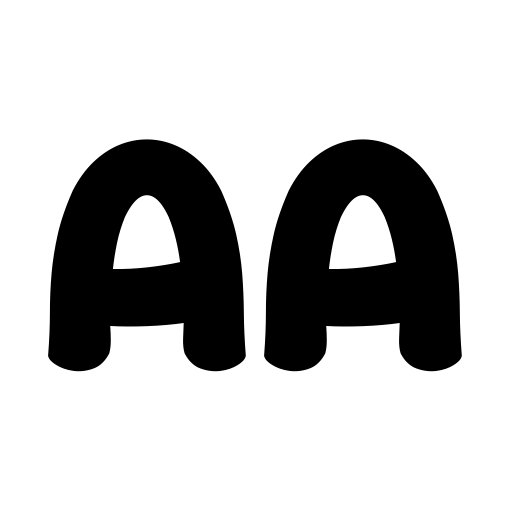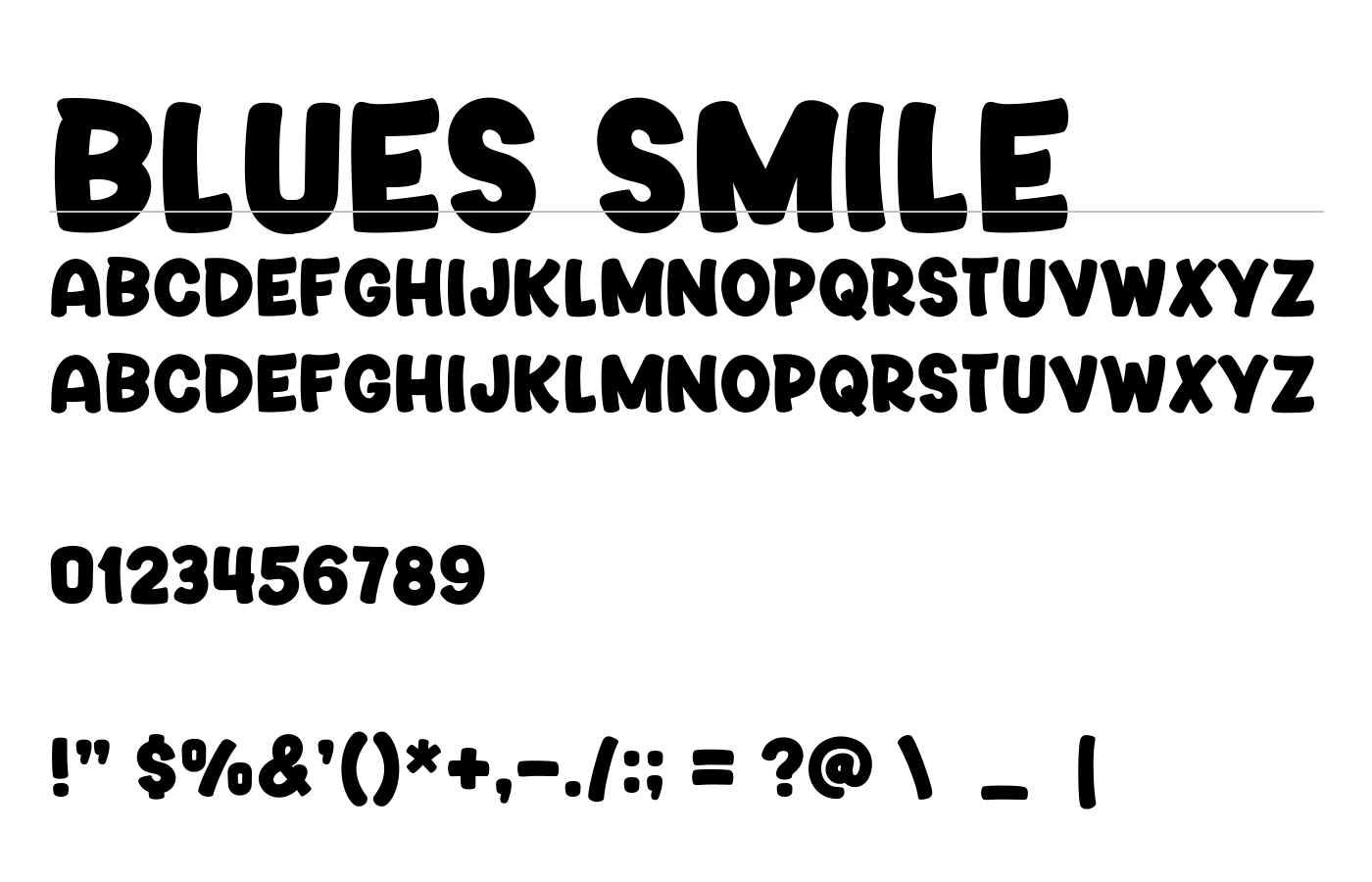
Blues Smile is a playful and friendly sans serif font with a rounded, chunky style that exudes warmth and approachability. Its bold weight and soft, slightly irregular shapes make it perfect for casual, fun designs such as children's books, logos, and creative branding that aim to feel inviting and cheerful. This font works best in headlines and display uses where a lively, informal tone is desired.
Blues Smile Font
About Blues Smile Font
| Font family | Blues Smile Font |
| Designer | Khurasan & Jalembe |